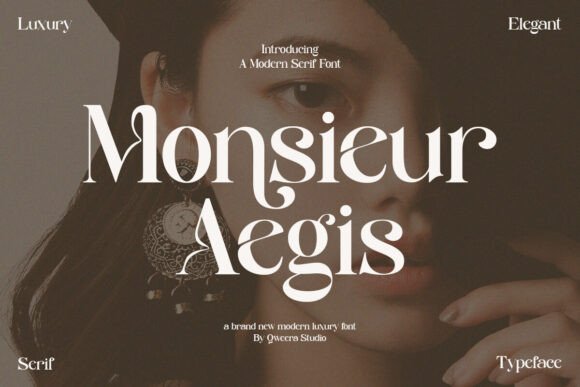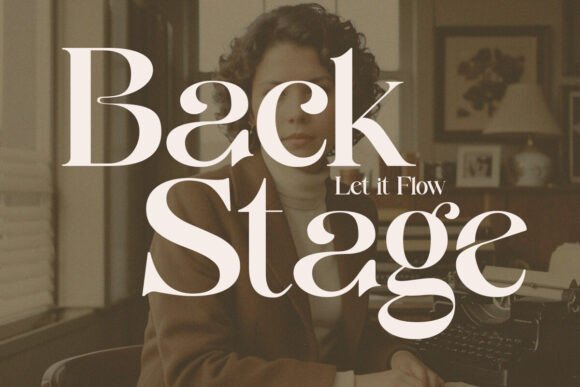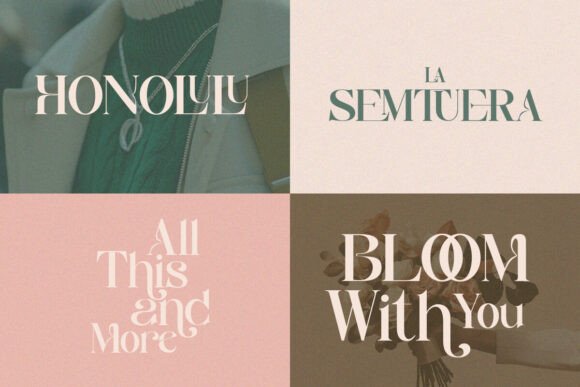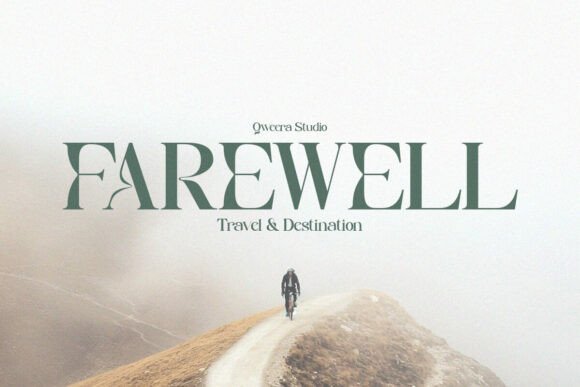
Monsieur Aegis Font: Elegant Serif Typography for Modern Branding & Logos
About the Monsieur Aegis Font
The wait is over! The incredible Monsieur Aegis Font is now available for your design toolkit. Monsieur Aegis is more than just a font—it’s a modern luxury serif typeface designed to bring an elegant and exclusive touch to your creative projects. With its unique letterforms and refined details, this font adds a sophisticated feel, making it perfect for branding, logos, posters, magazines, and print designs. Whether you’re crafting a high-end logo or designing a standout editorial layout, Monsieur Aegis ensures your work radiates elegance and refinement.
Where Modern Luxury Meets Timeless Elegance
Monsieur Aegis stands out with its clean lines, stylish alternates, and ligatures, offering endless creative possibilities. Its versatility makes it ideal for projects that demand a luxurious and elegant aesthetic, from corporate branding to editorial masterpieces. This font isn’t just a tool—it’s a statement of sophistication and design excellence.
Elevate Your Designs with Monsieur Aegis
Monsieur Aegis isn’t just a font—it’s a tool to transform your creative projects into luxurious, timeless masterpieces. Whether you’re designing for print, digital, or branding, this font ensures your work stands out with unmatched elegance and sophistication.
Monsieur Aegis Font Usage Examples
Monsieur Aegis Font Example